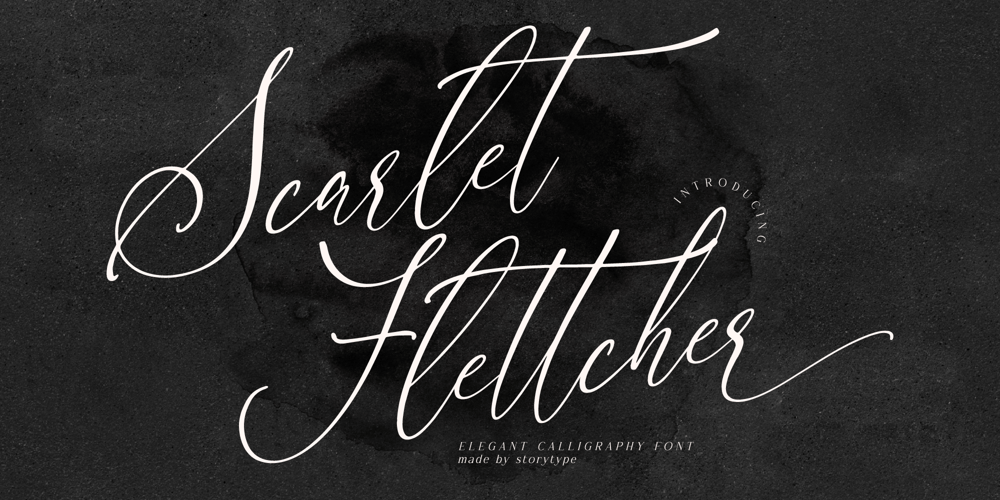
Scarlet Flettcher Font Family was designed by Heru Utama Putra and published by Letterena Studios. Scarlet Flettcher contains 2 styles and family package options. Scarlet Flettcher – Elegant Calligraphy Font with a unique style and luxurious look.This typeface is perfect for an elegant & luxury logo, book or movie title design, fashion brand, magazine, clothes, lettering, quotes, and so much more.